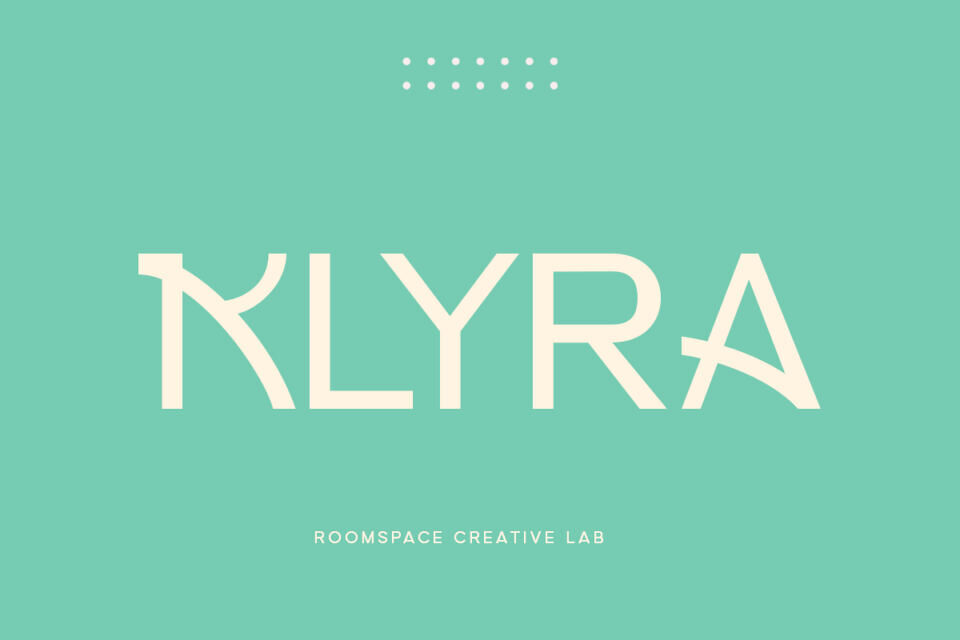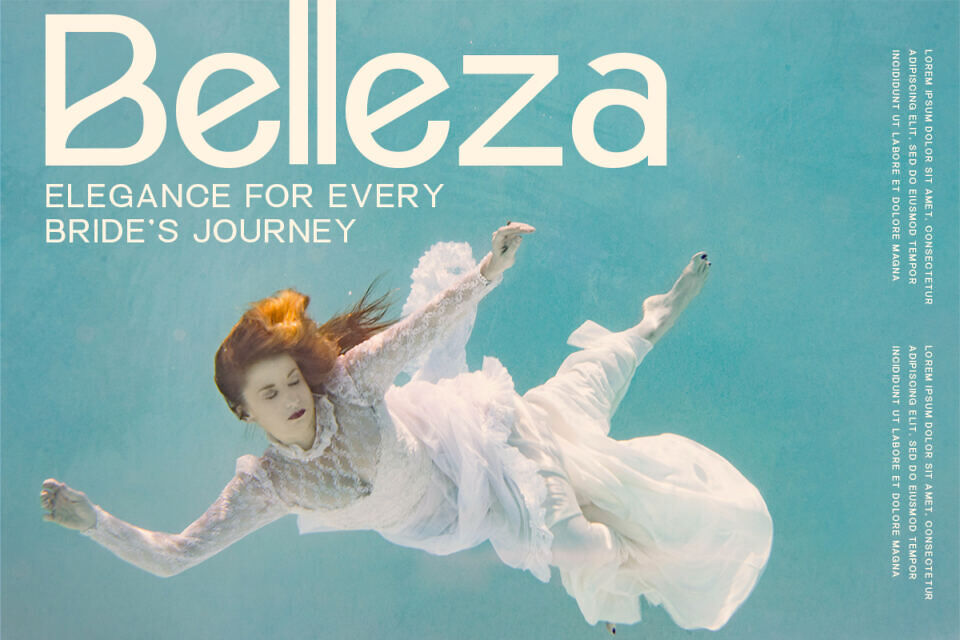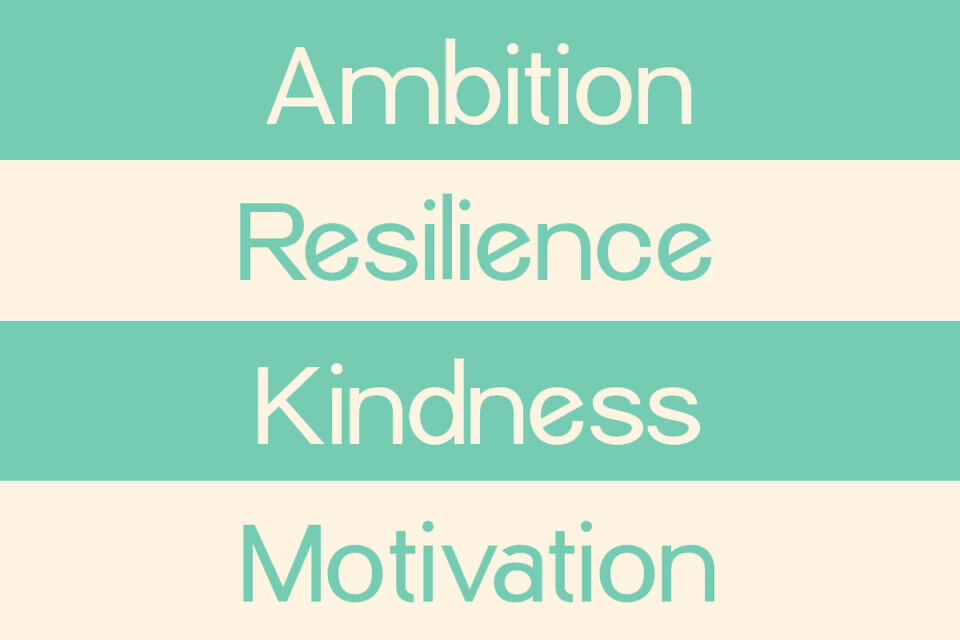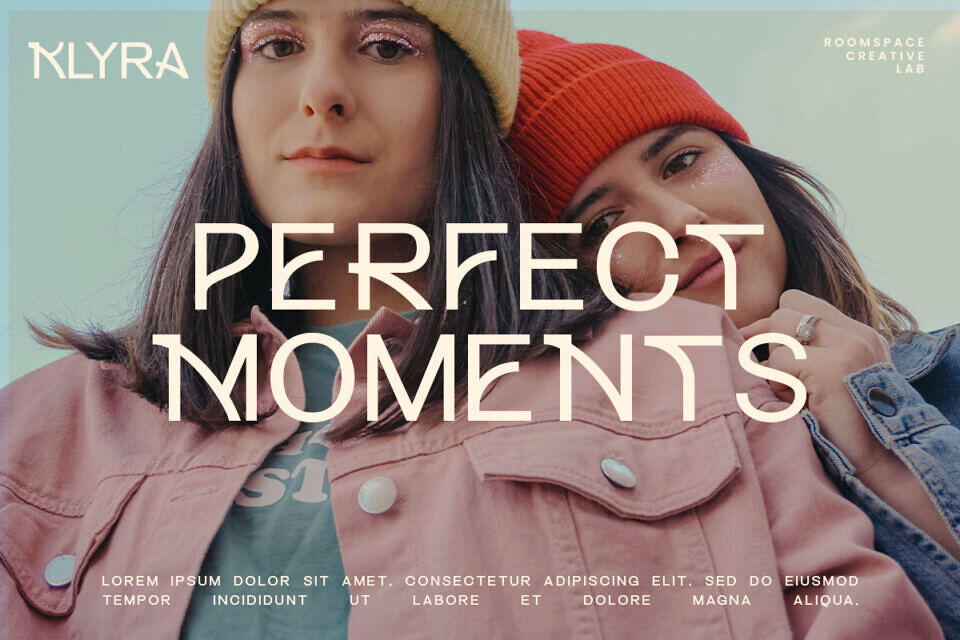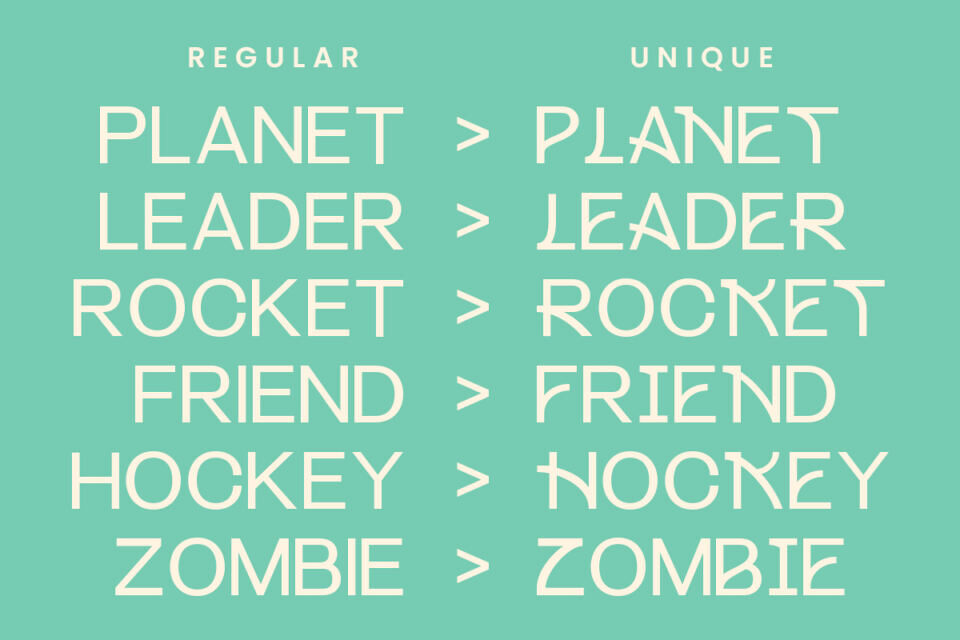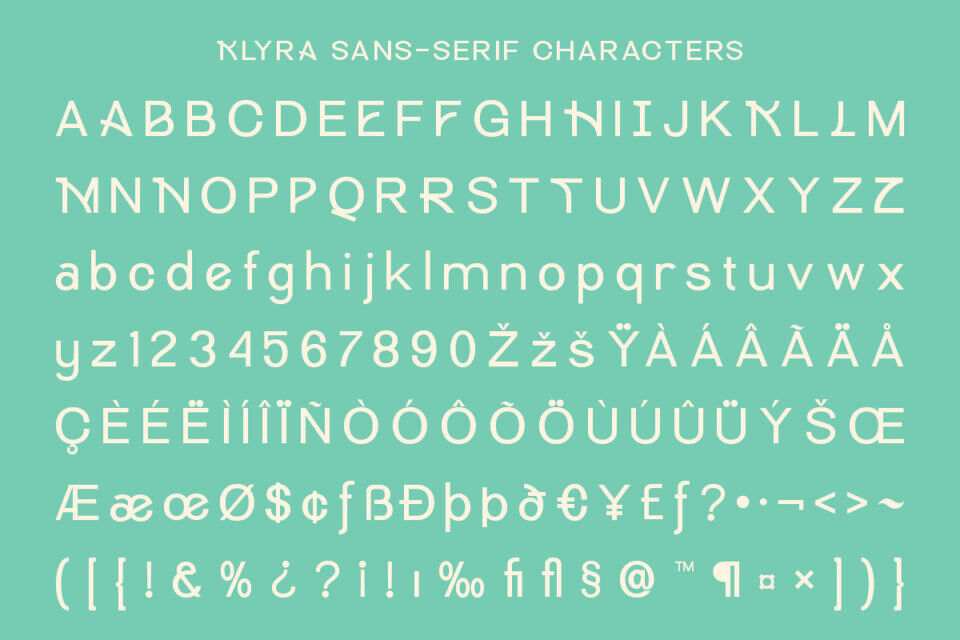
Klyra Font
Klyra a modern sans serif font that embodies creativity and uniqueness. Klyra stands out with its meticulously crafted uppercase letters, each uniquely modified to harmonize beautifully with lowercase characters. This innovative design not only enhances readability but also imparts a futuristic aesthetic, making it perfect for a variety of applications, from branding to digital media.